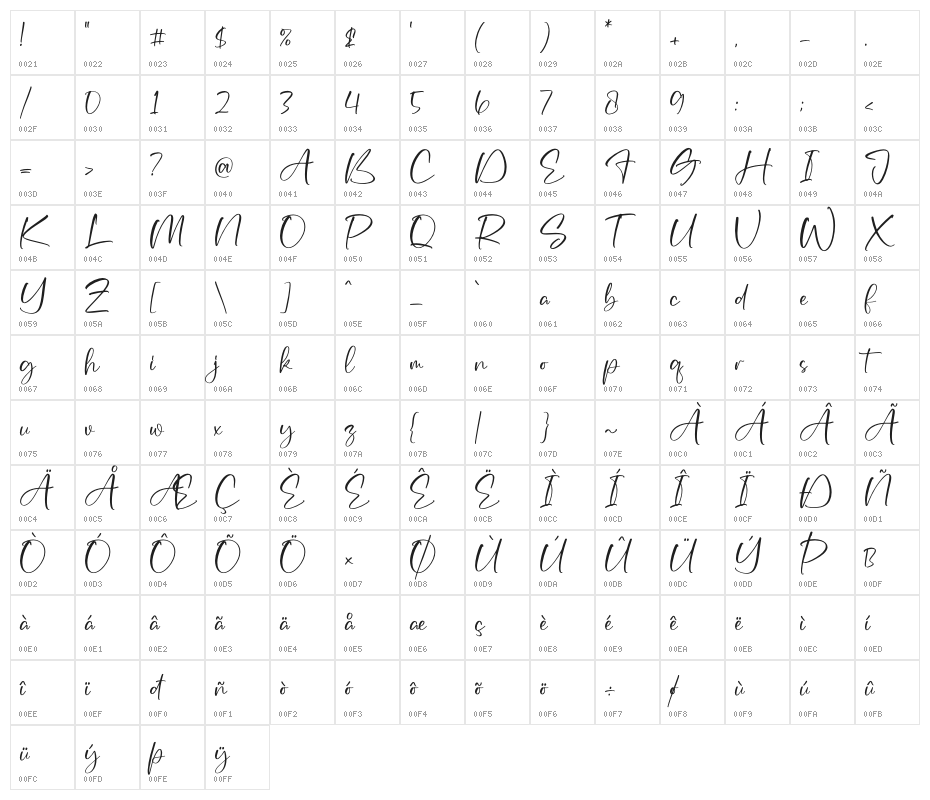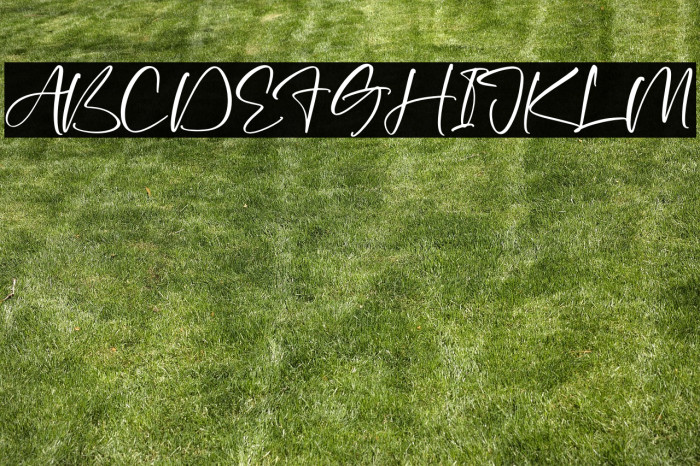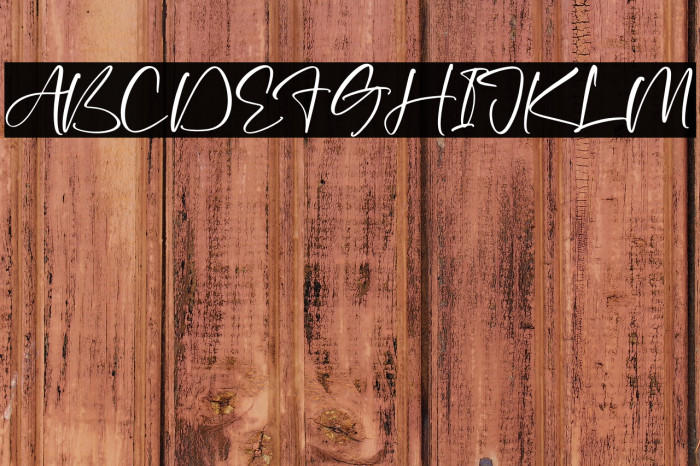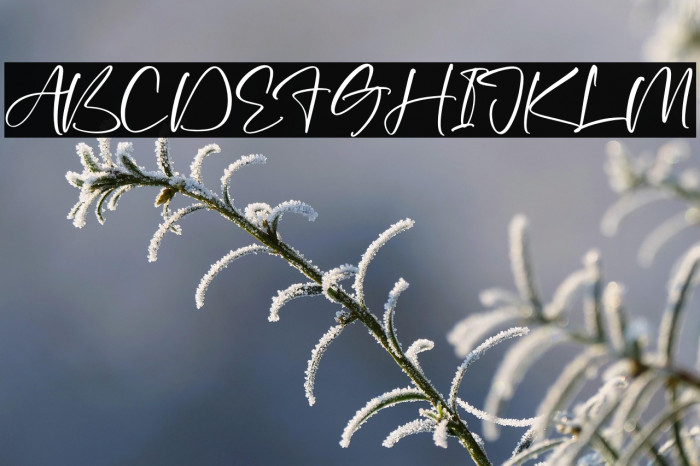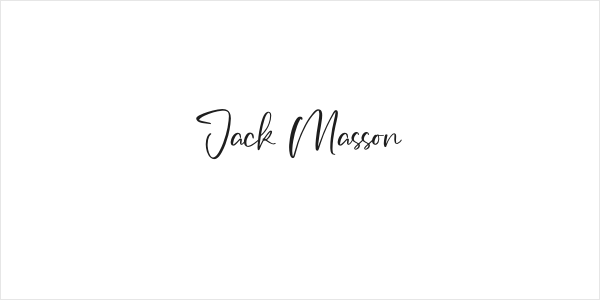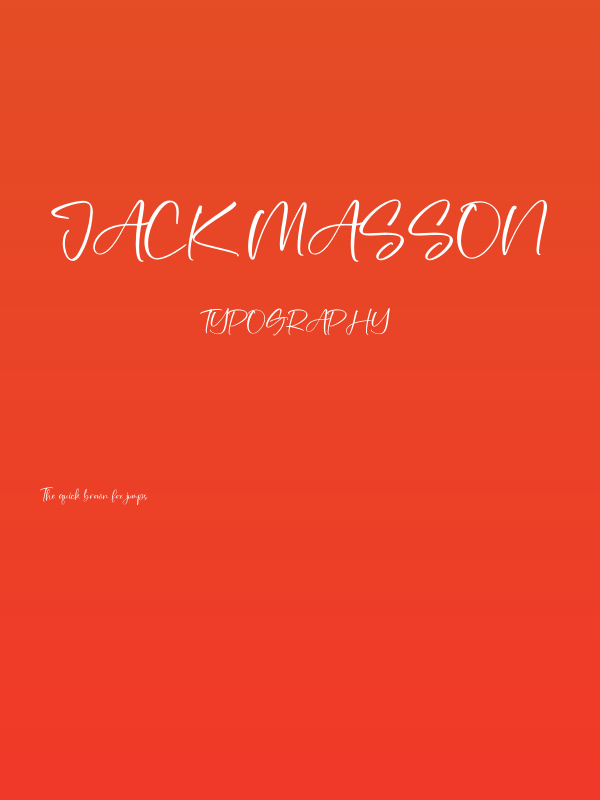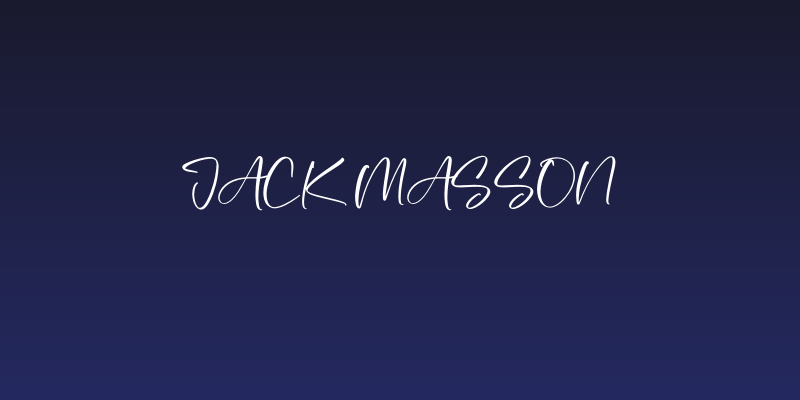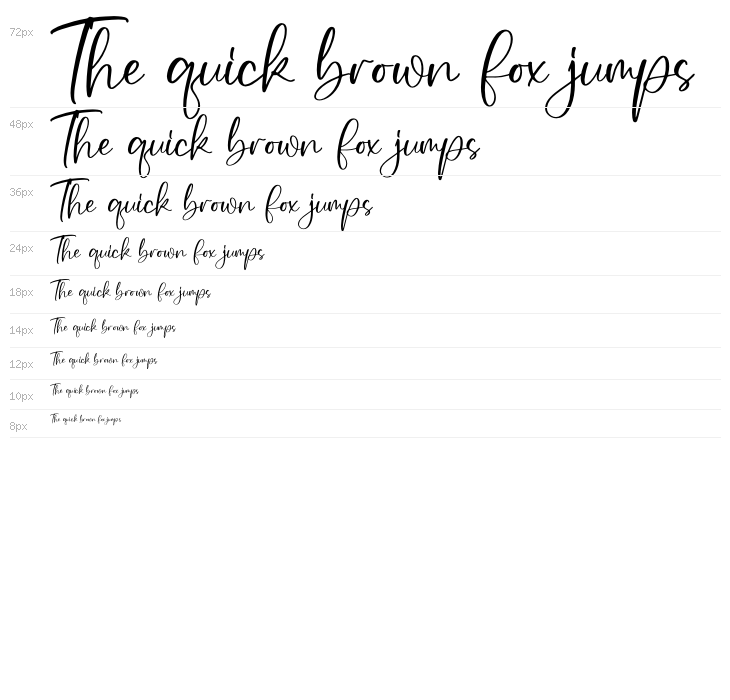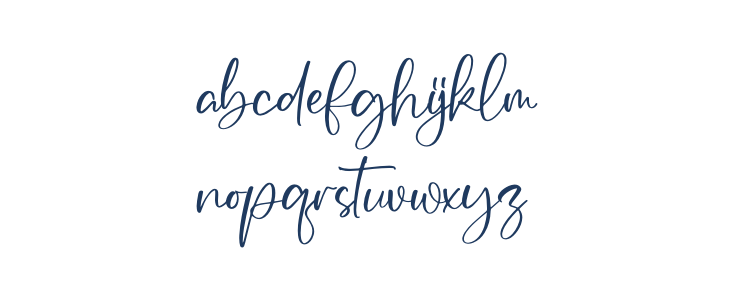
Jack Masson Font
Jack Masson Description
This font exhibits a lively and dynamic handwritten style, characterized by its fluid and flowing letterforms. The uppercase letters are bold and expressive, with a slight slant that adds to the overall energetic feel. The lowercase letters maintain a consistent rhythm, with loops and curves that enhance the handwritten aesthetic. Numbers are clear and legible, while the special characters integrate seamlessly with the rest of the font. The overall appearance is both elegant and casual, making it versatile for various design applications.
| Proposed Projects | Ideal for wedding invitations, personal branding, greeting cards, and creative projects that require a personal touch. |